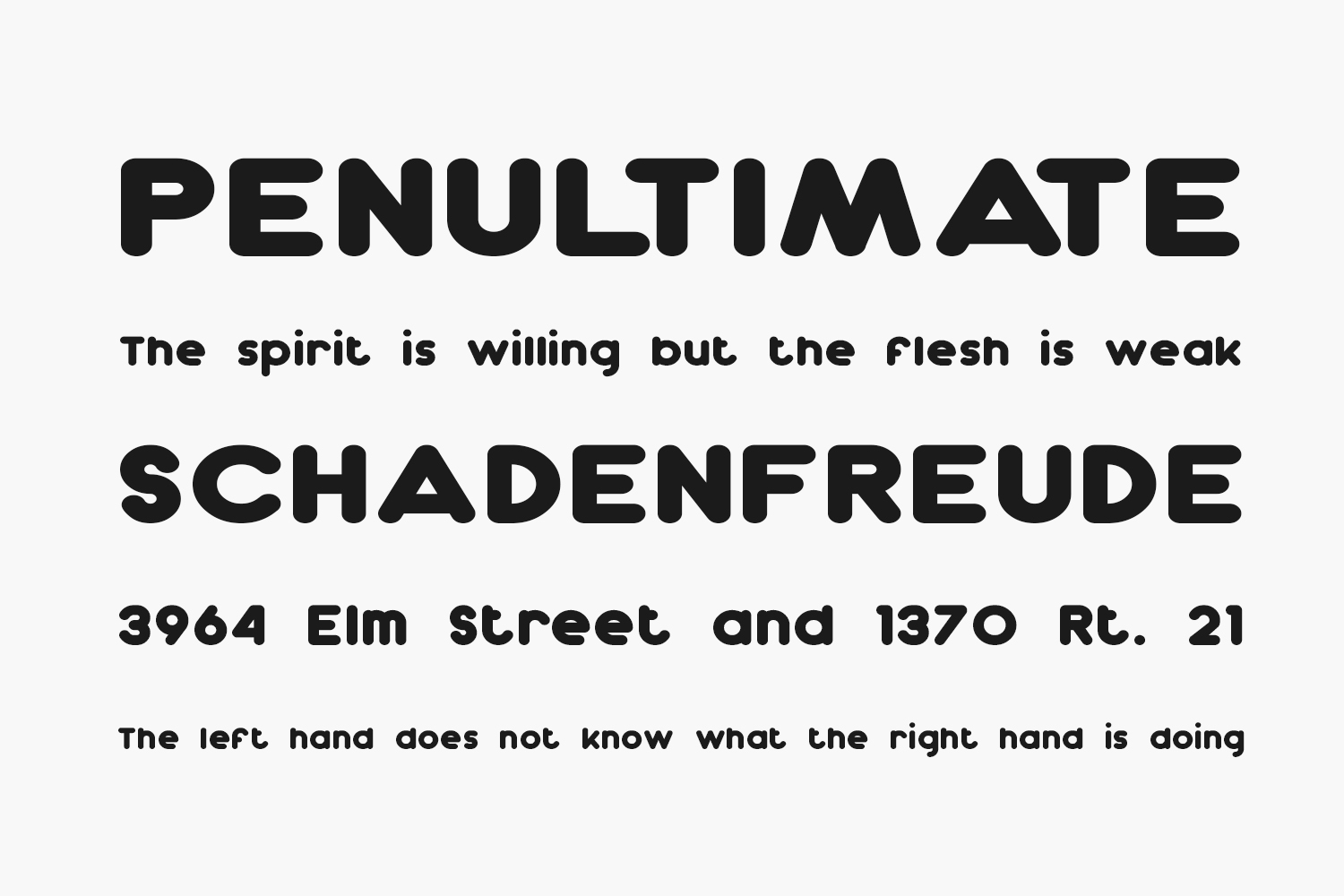
Discover Dunkin Free Font Family, a bold and smooth font inspired by the iconic “Dunkin’ Donuts” logo. This versatile typeface comes complete with a full alphabet, lowercase characters, accents, and Euro symbols. The font offers a range of styles, including bold, italic, bold-italic, and sans versions, providing flexibility for various design needs. Elevate your projects with the distinctive appeal of Dunkin’s typographic excellence. Download the font for free if you need it for personal use or purchase the full version for commercial use.
Designed by Pixel Sagas